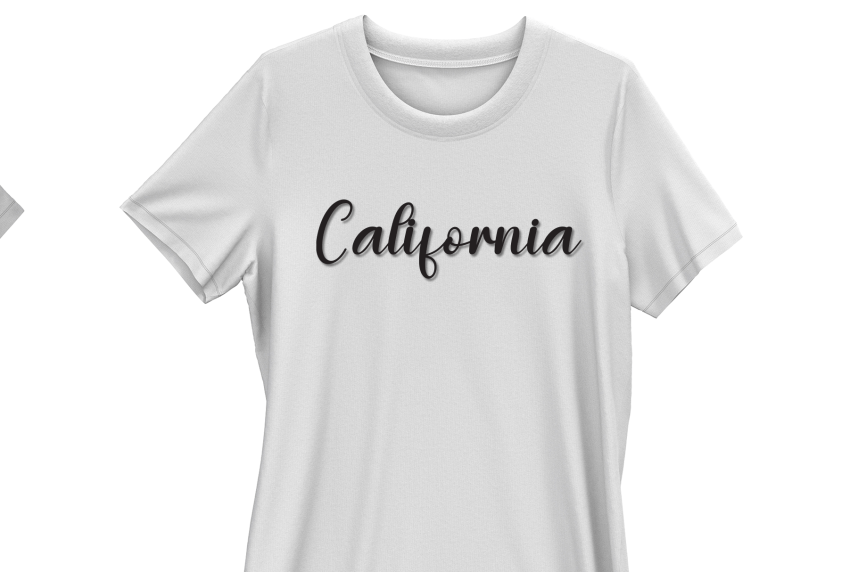
Lifestyle Calligraphy Script Font
Lifestyle Calligraphy Script Font is a sweet and friendly handwritten display font. Cute and fun, this font is ideal for writing wedding invitations, cards, or any other design that might need a playful touch!